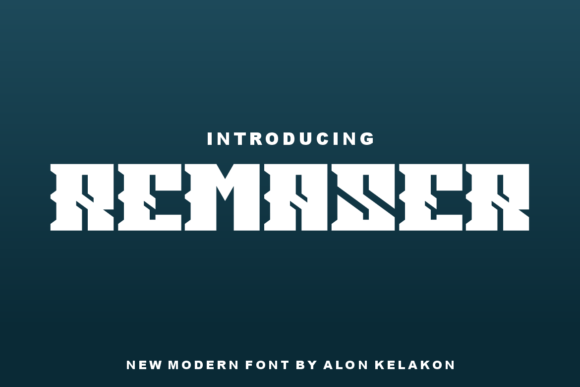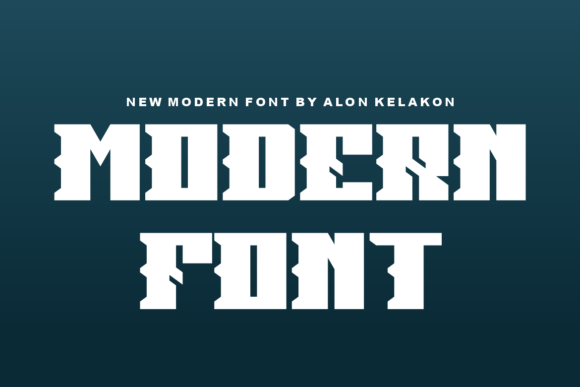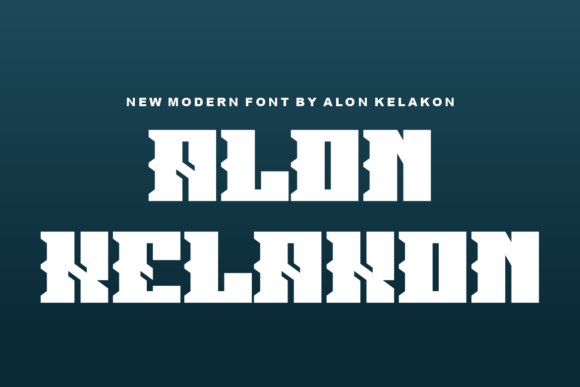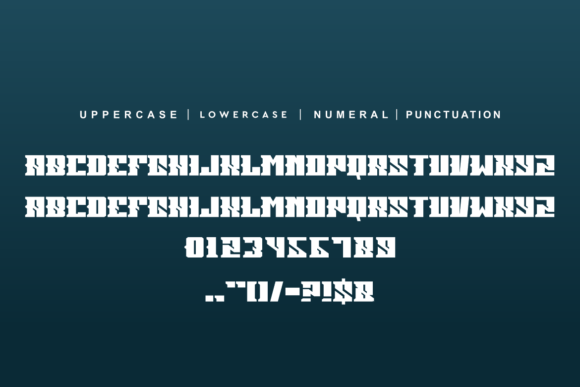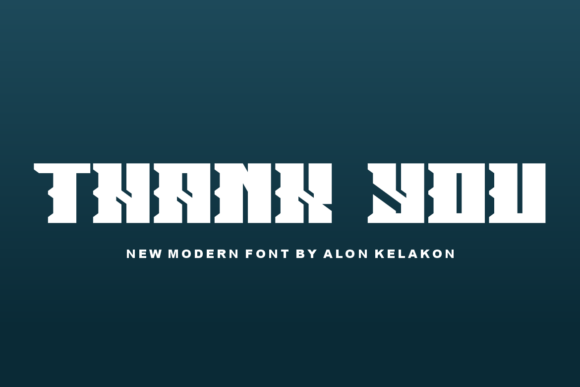
Remaser Font
REMASER FONT SPECIMEN
Remaser is a unique slab serif font, ready to use for your design like labeling, clothing, movie scenes, poster, movie title, gigs, album covers, logos, and much more.